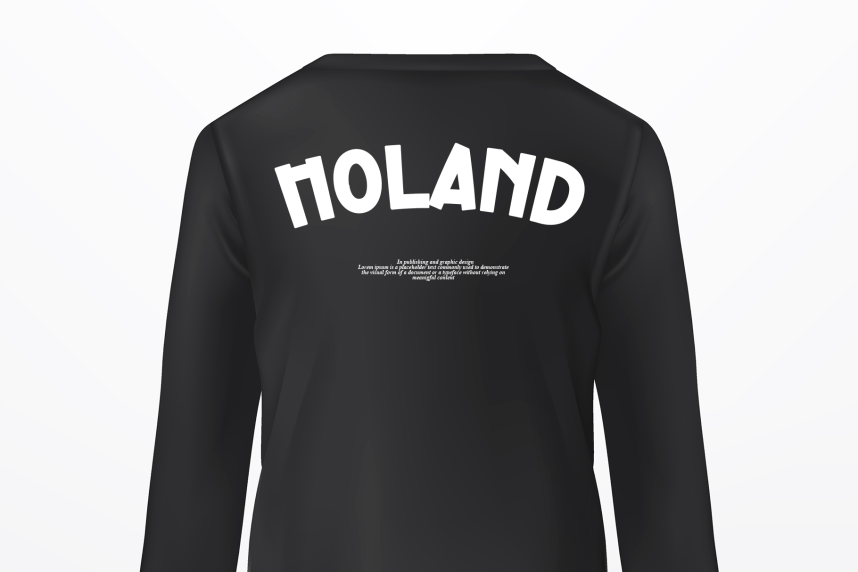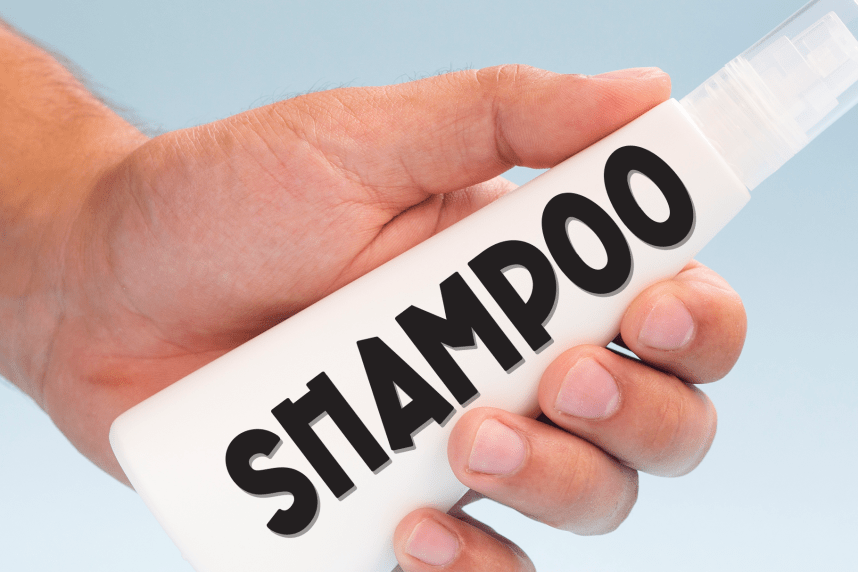
Candy Creative – Playful And Unique Font is a sweet and friendly handwritten display font. Cute and fun, this font is ideal for writing wedding invitations, cards, or any other design that might need a playful touch!